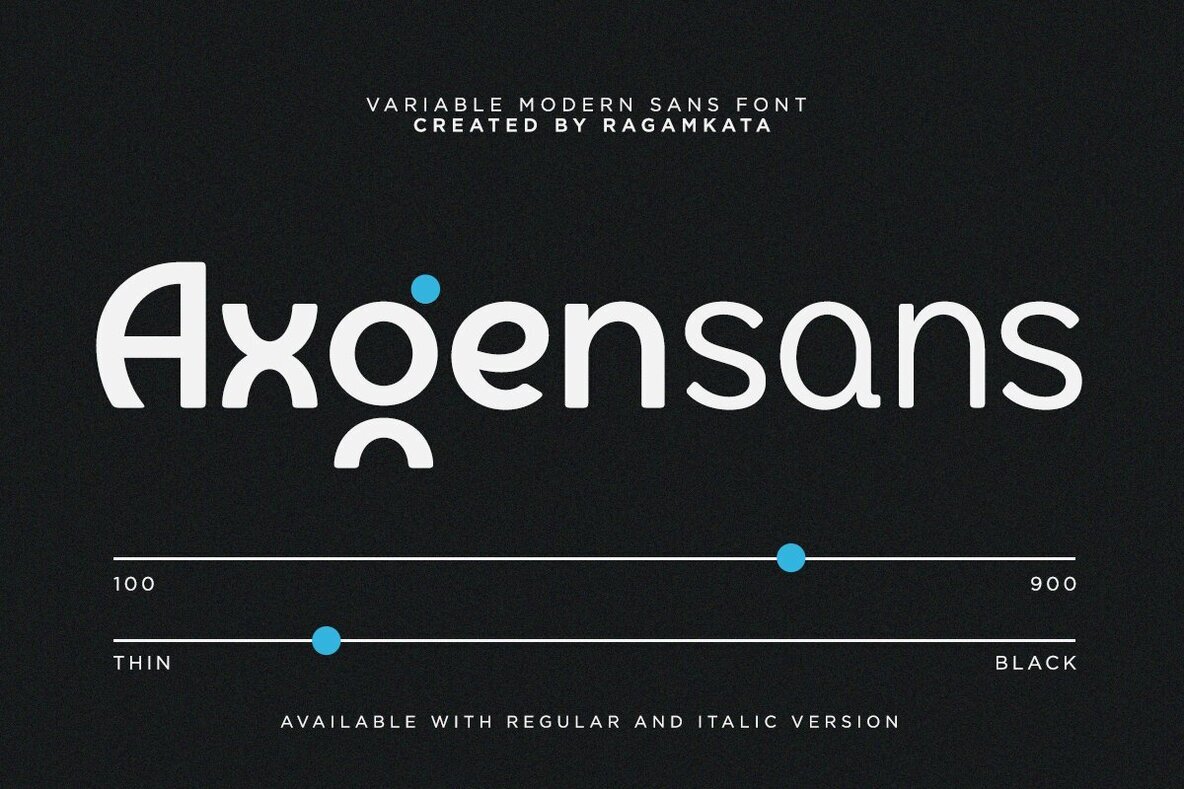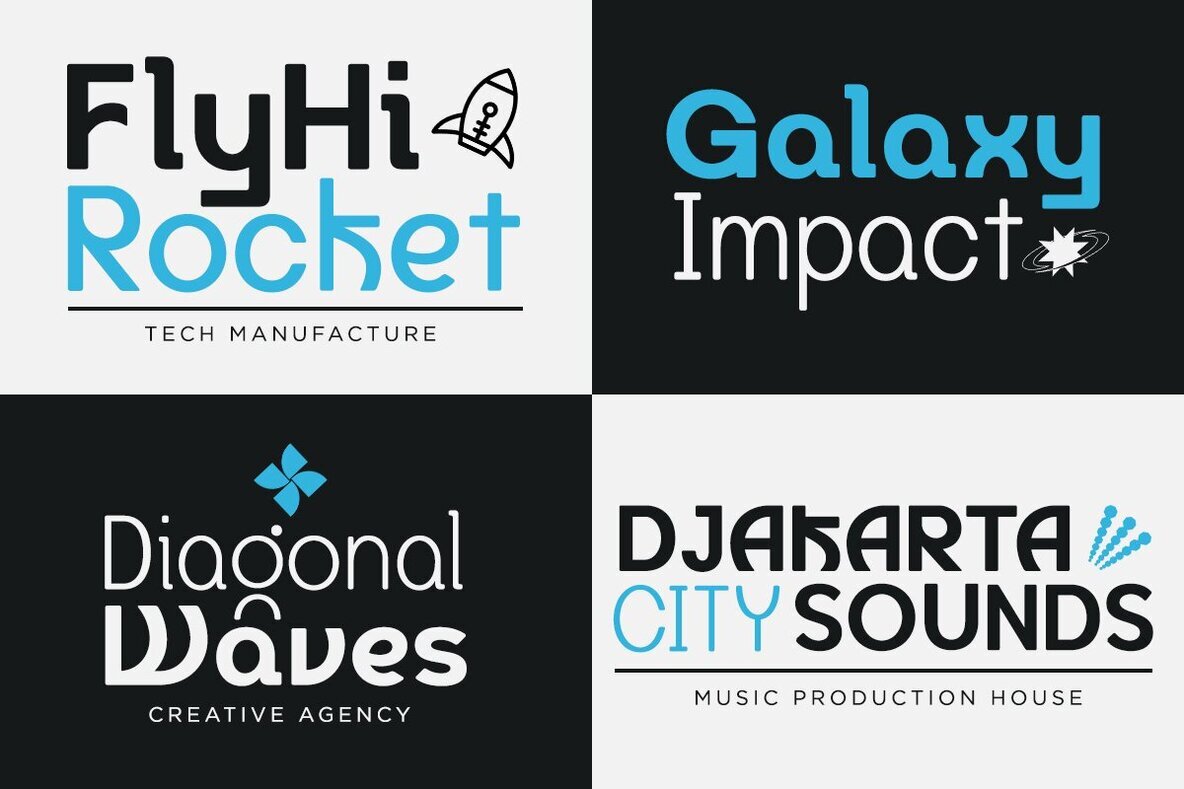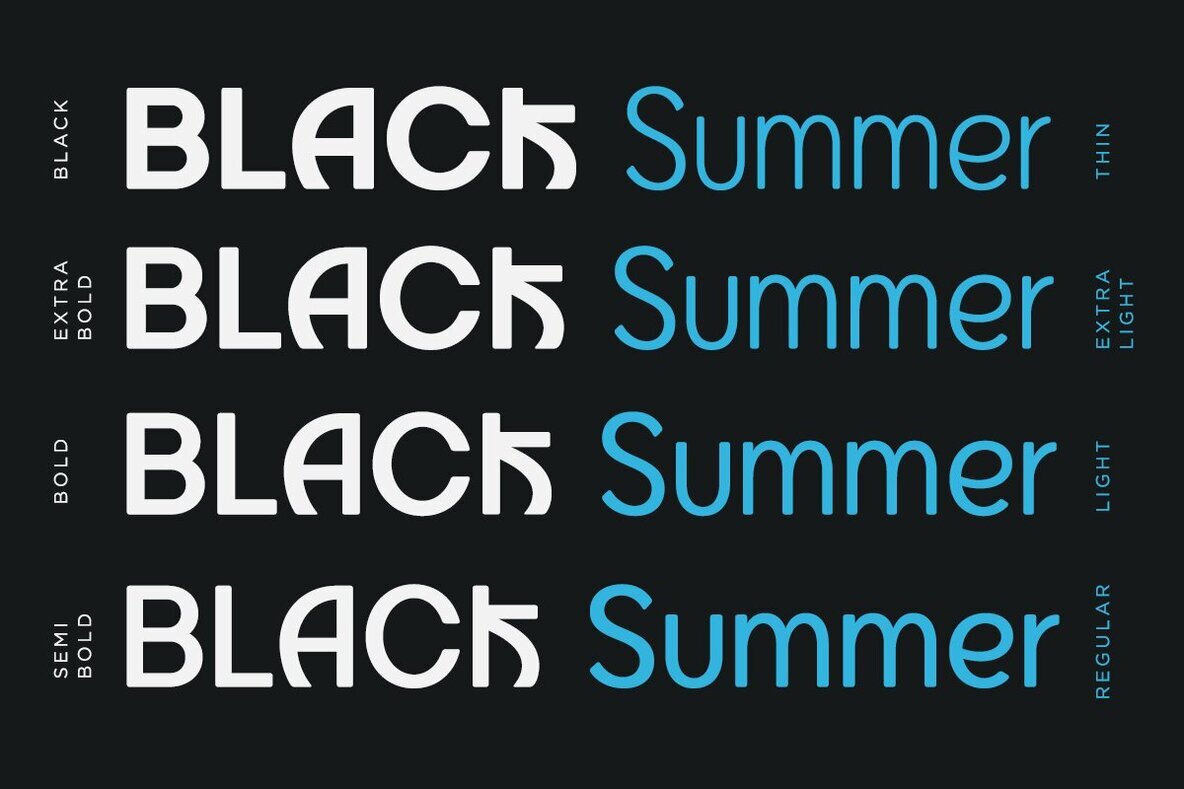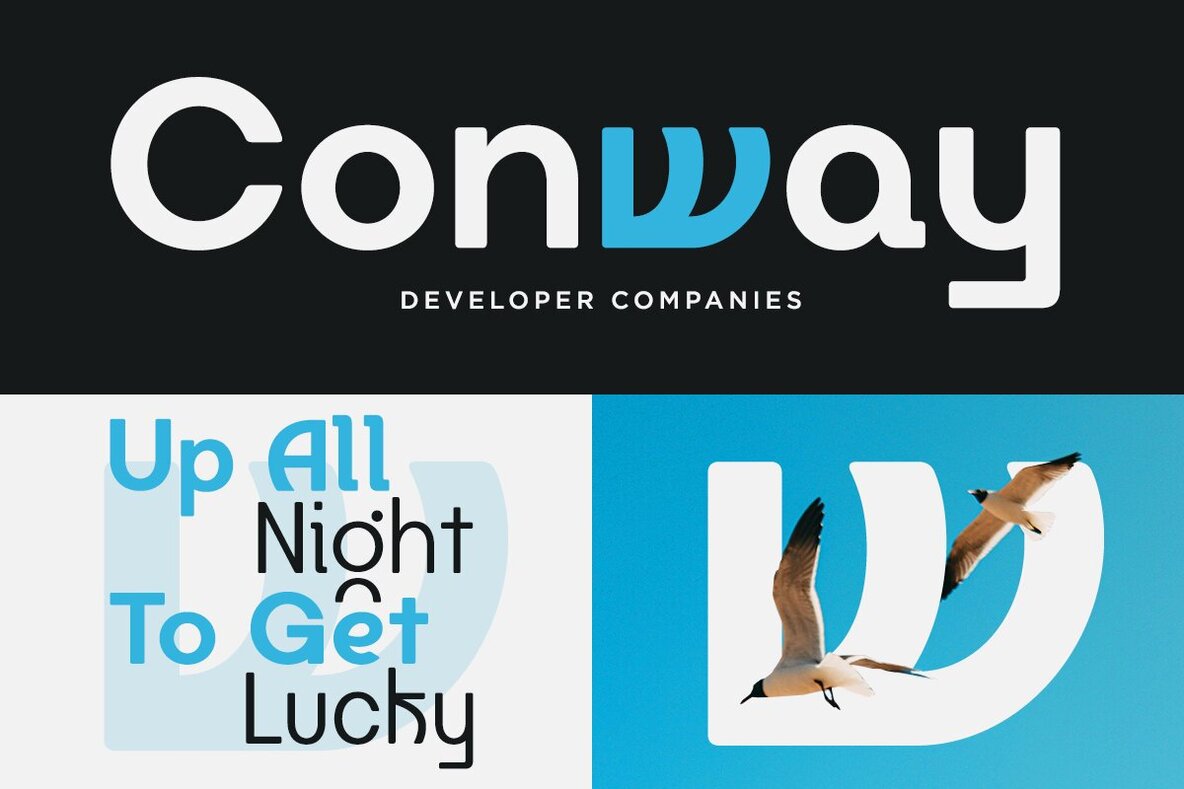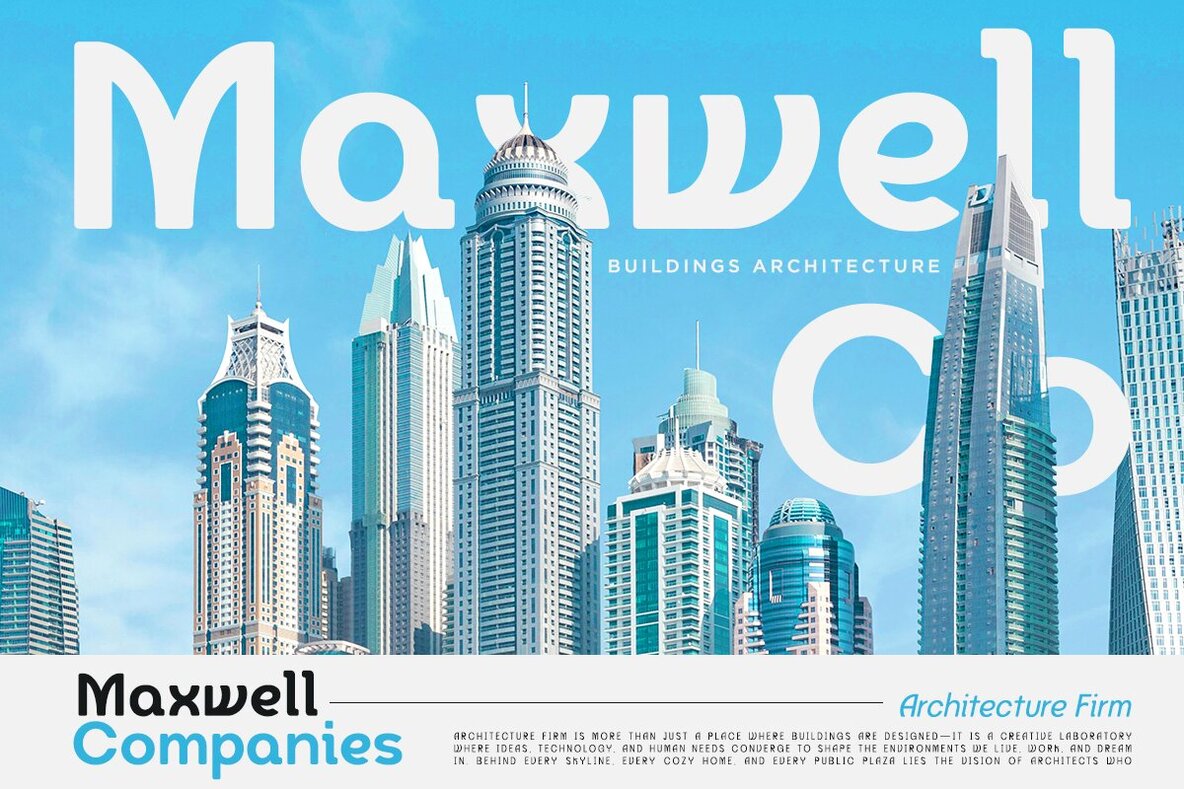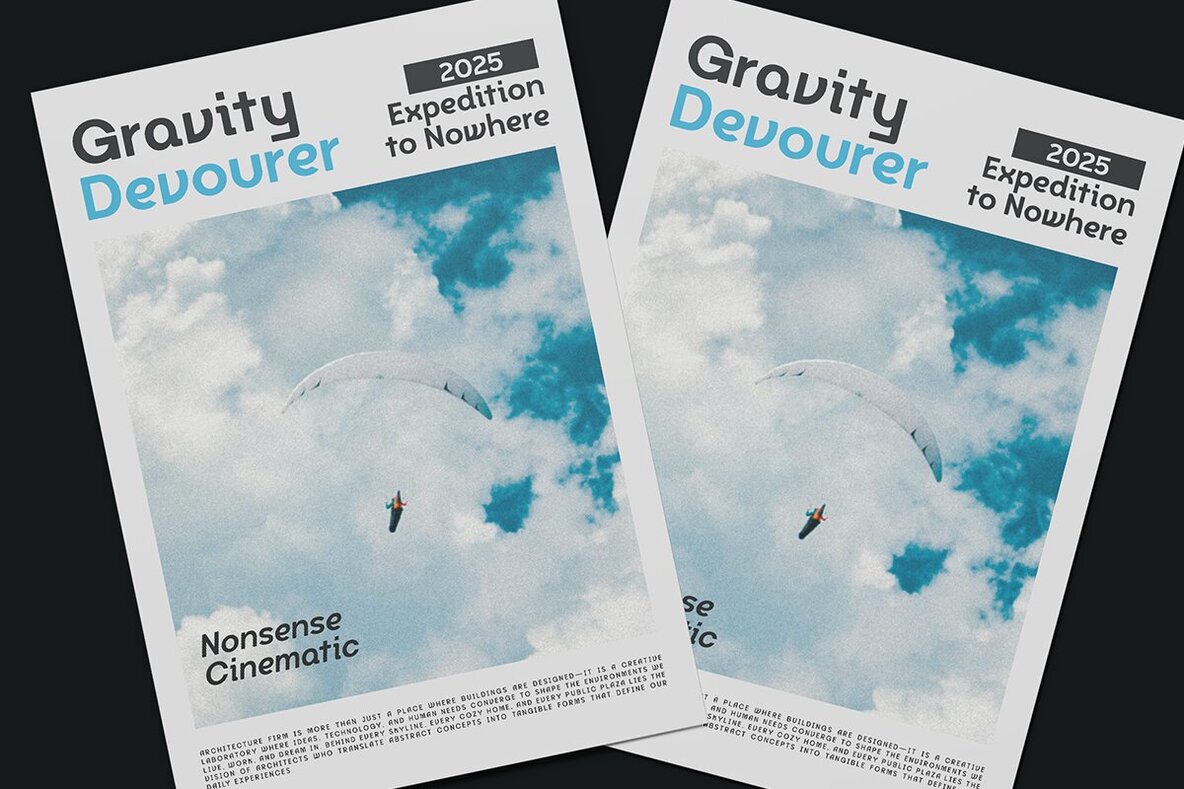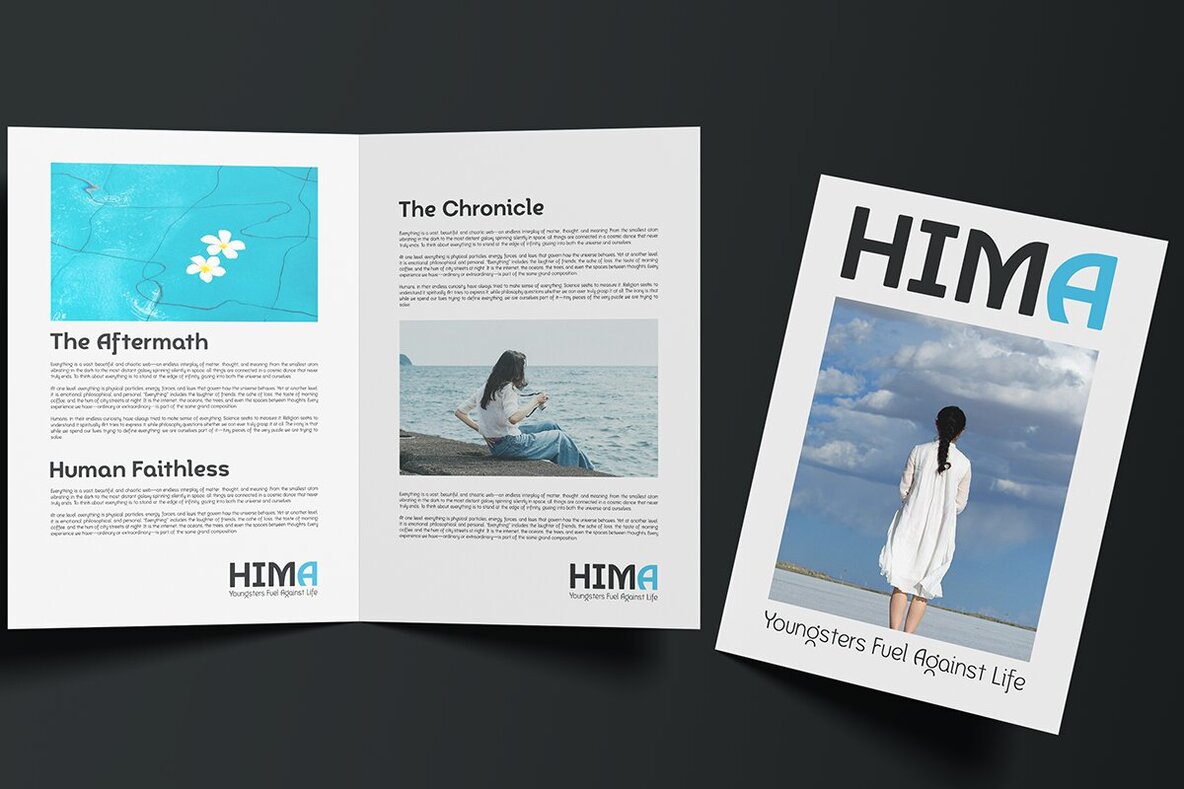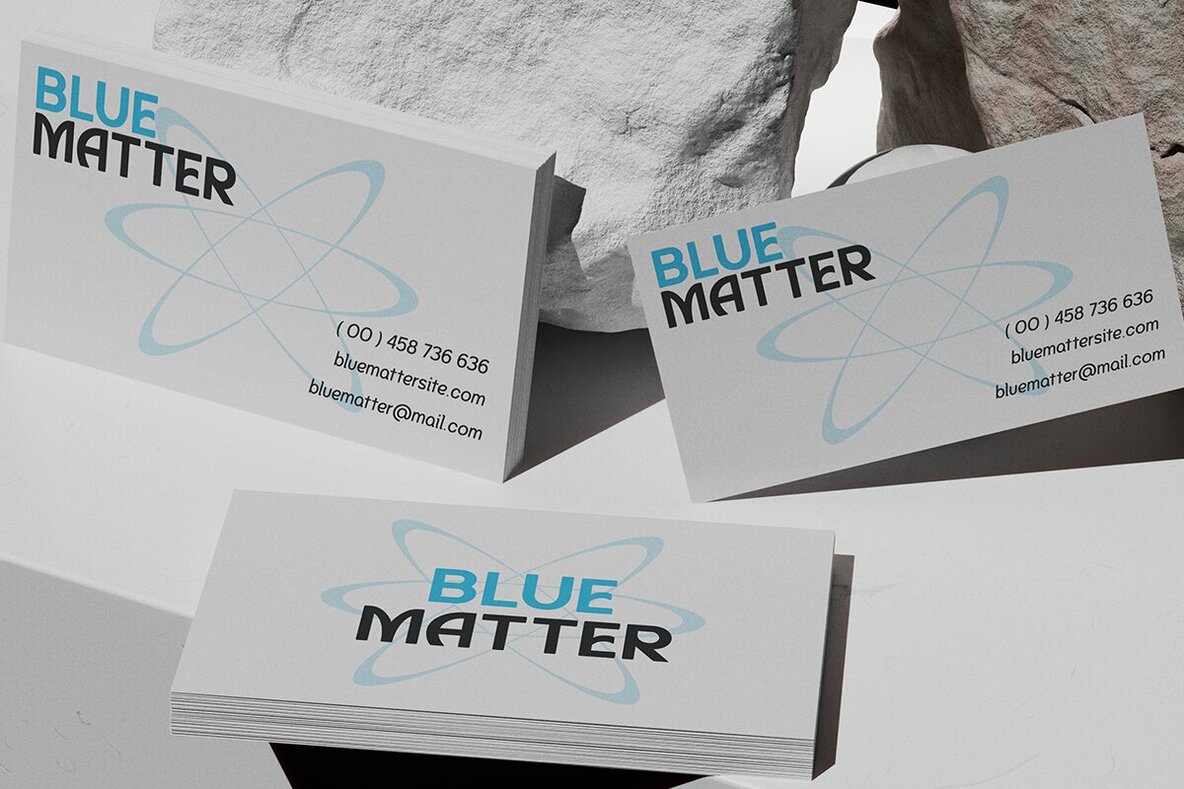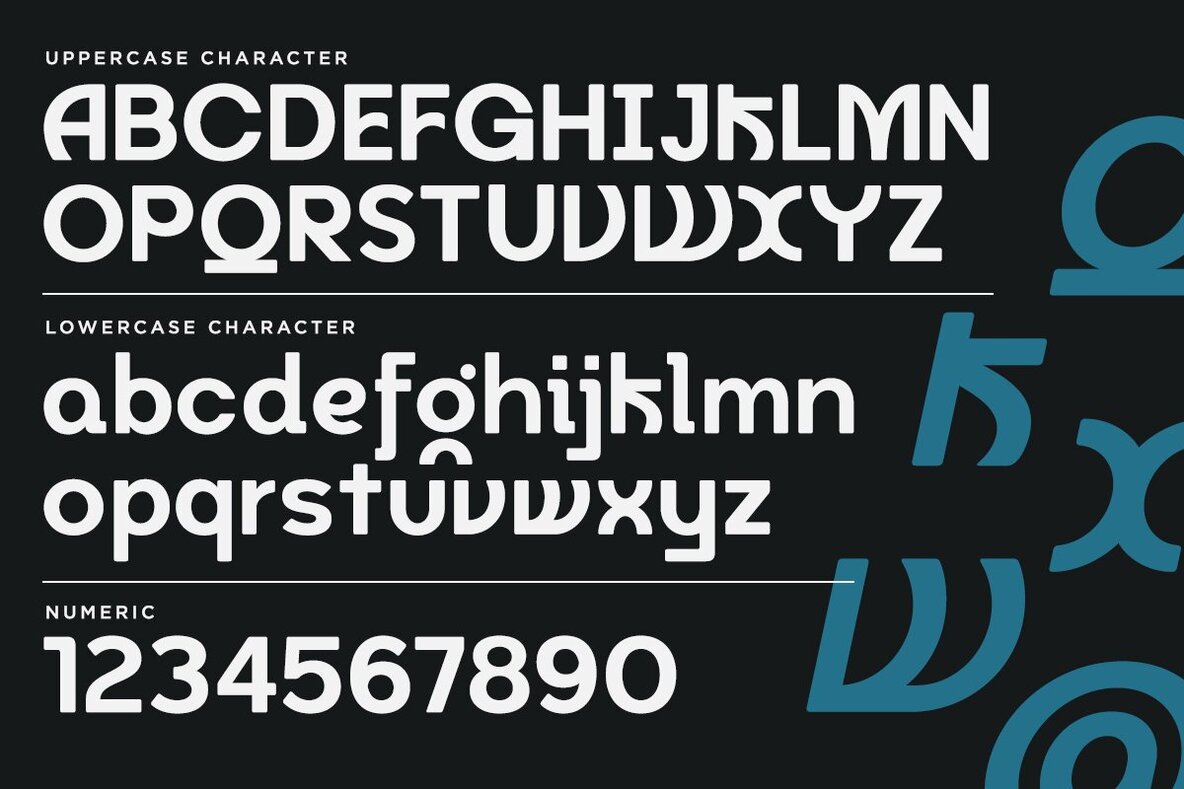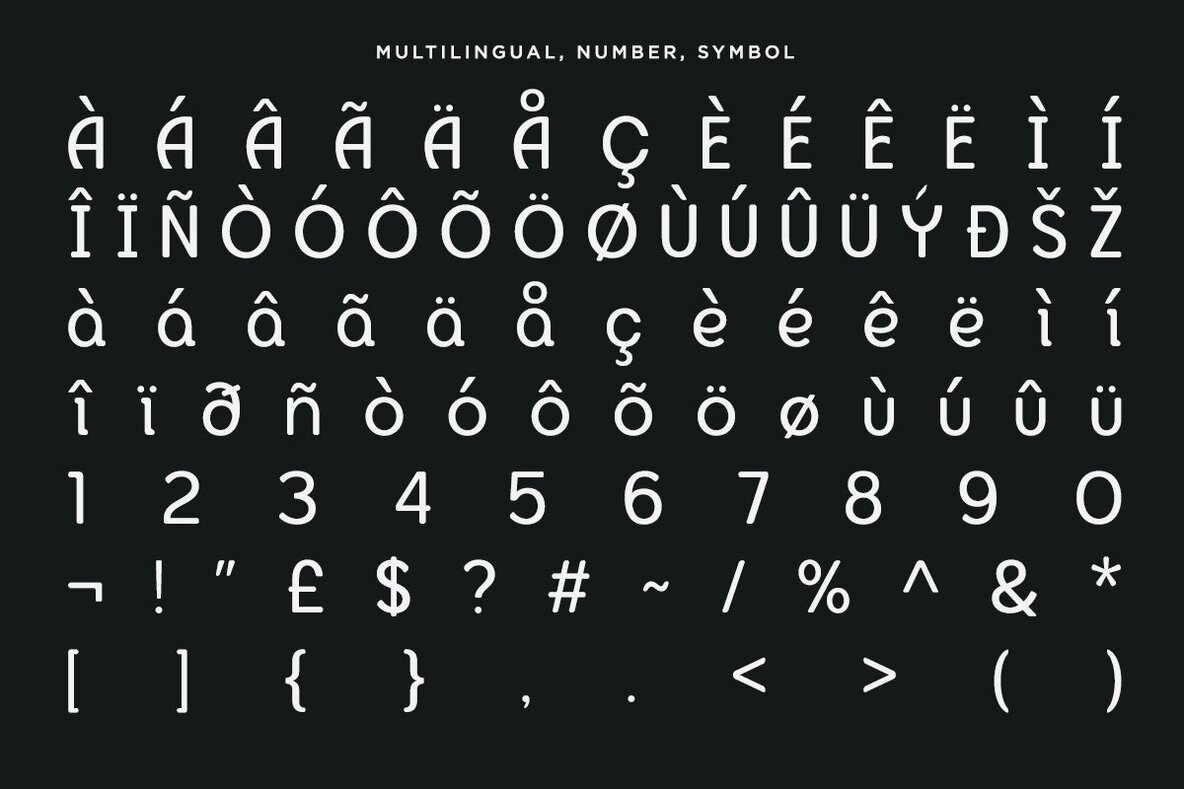
Axgensans Font
Axgensans is a modern typeface designed with a focus on elegance for high-end branding and sophisticated design projects. The refined, balanced letterforms of Axgensans offer a contemporary yet timeless aesthetic. Ideal for logos, corporate identities, and professional presentations, this font embodies the essence of modern minimalism while maintaining sophistication and luxury.Axgensans: Sleek Typeface for Modern Branding